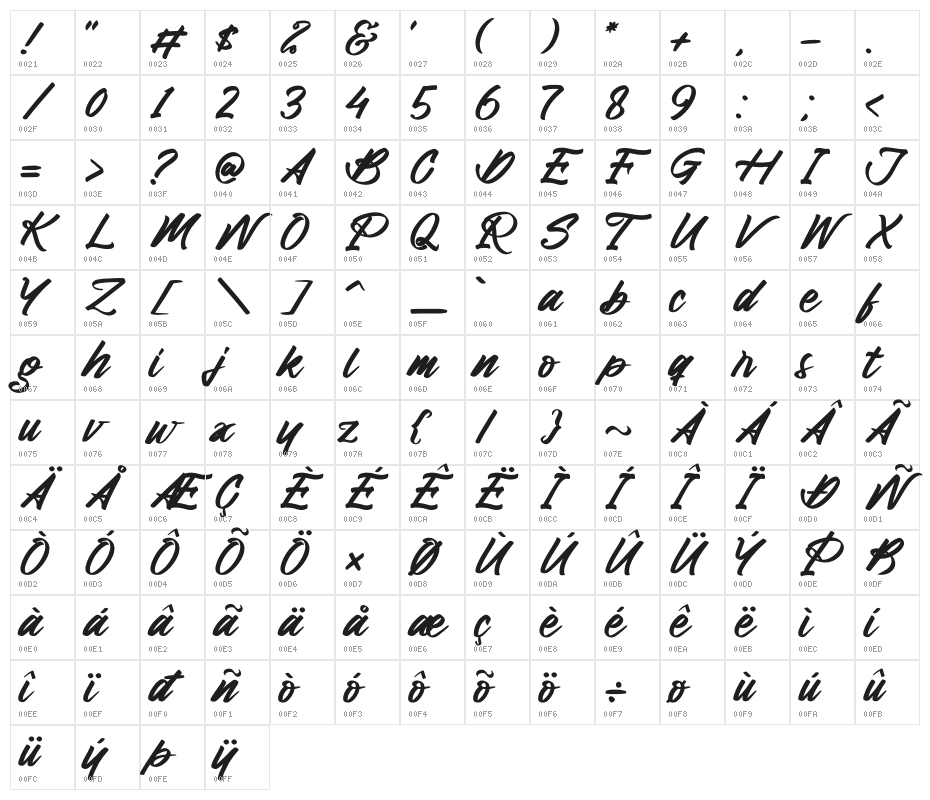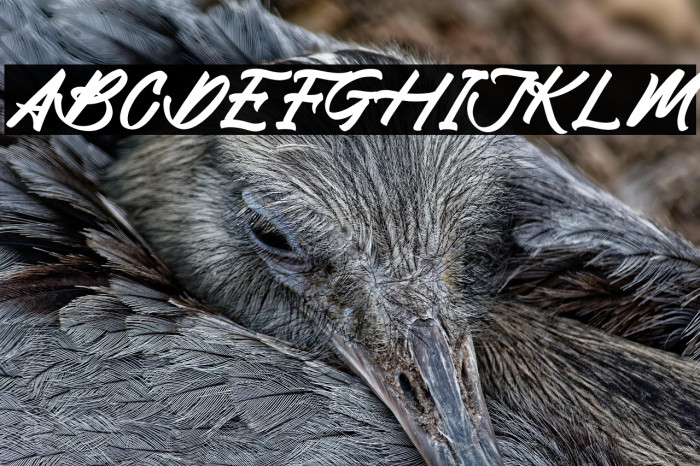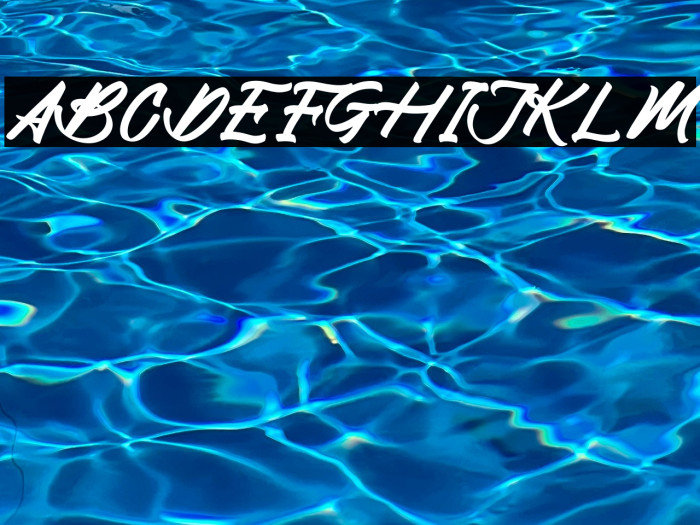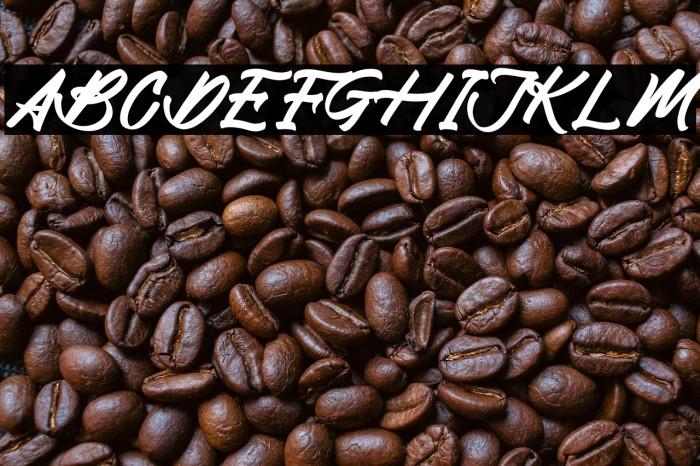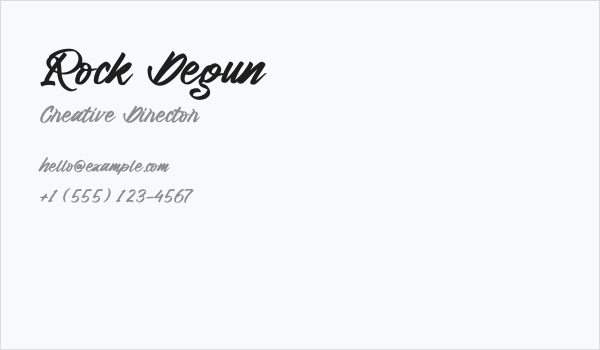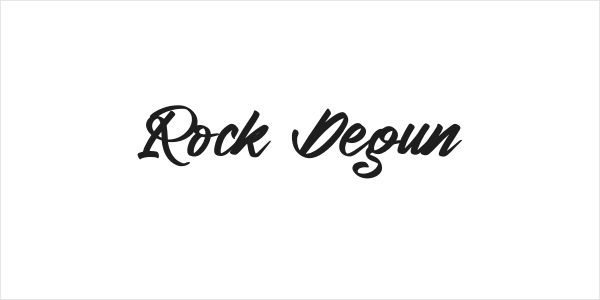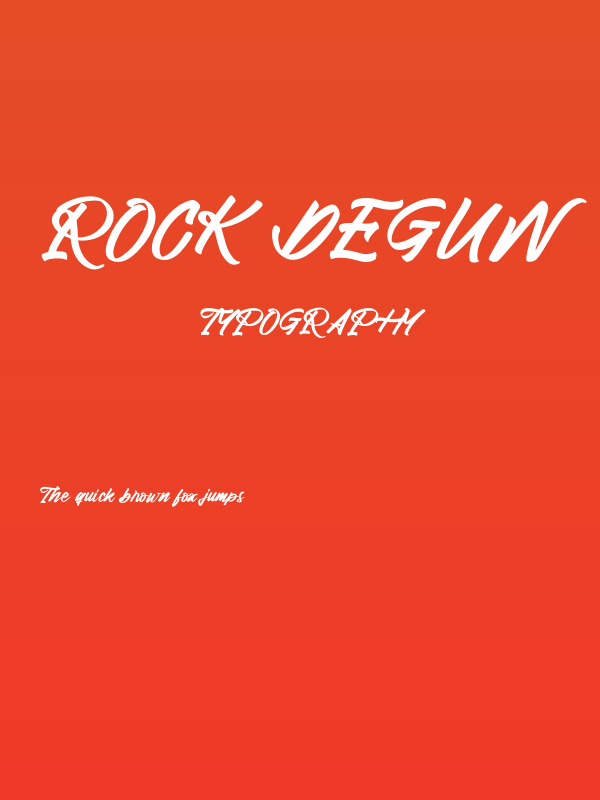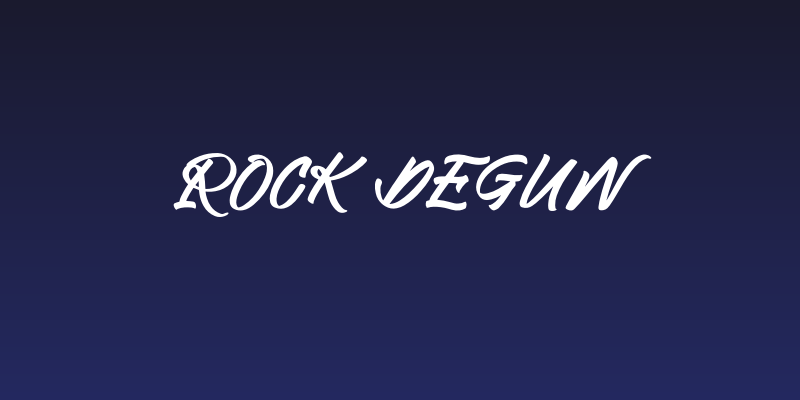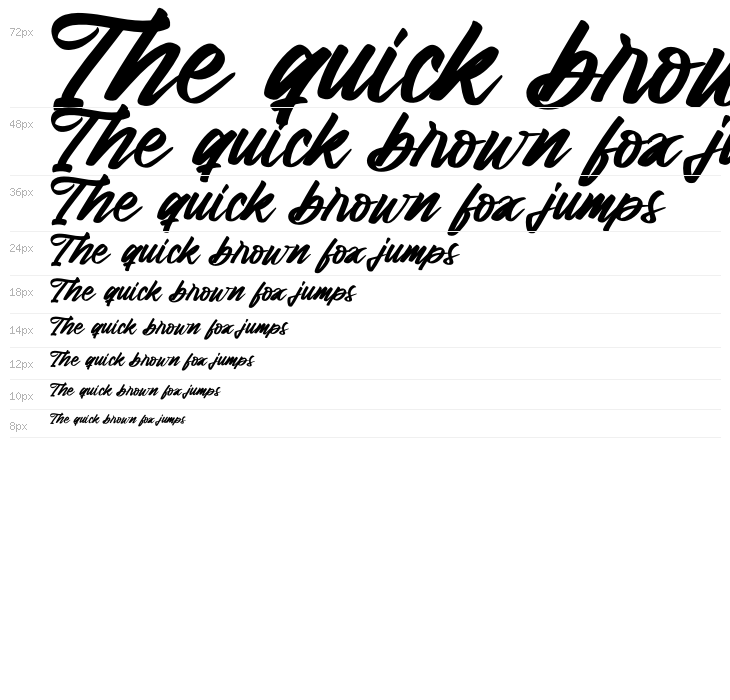
Rock Degun Font
Rock Degun Description
This font features a bold, cursive style with a dynamic and flowing appearance. The letters are interconnected, creating a seamless and elegant script. The uppercase letters maintain a consistent height, while the lowercase letters exhibit a slight slant, enhancing the fluidity of the text. The numerals are equally stylized, matching the overall aesthetic of the alphabet. Special characters are included, maintaining the same bold and cursive characteristics. This font exudes a sense of sophistication and creativity, making it suitable for various artistic and expressive applications.